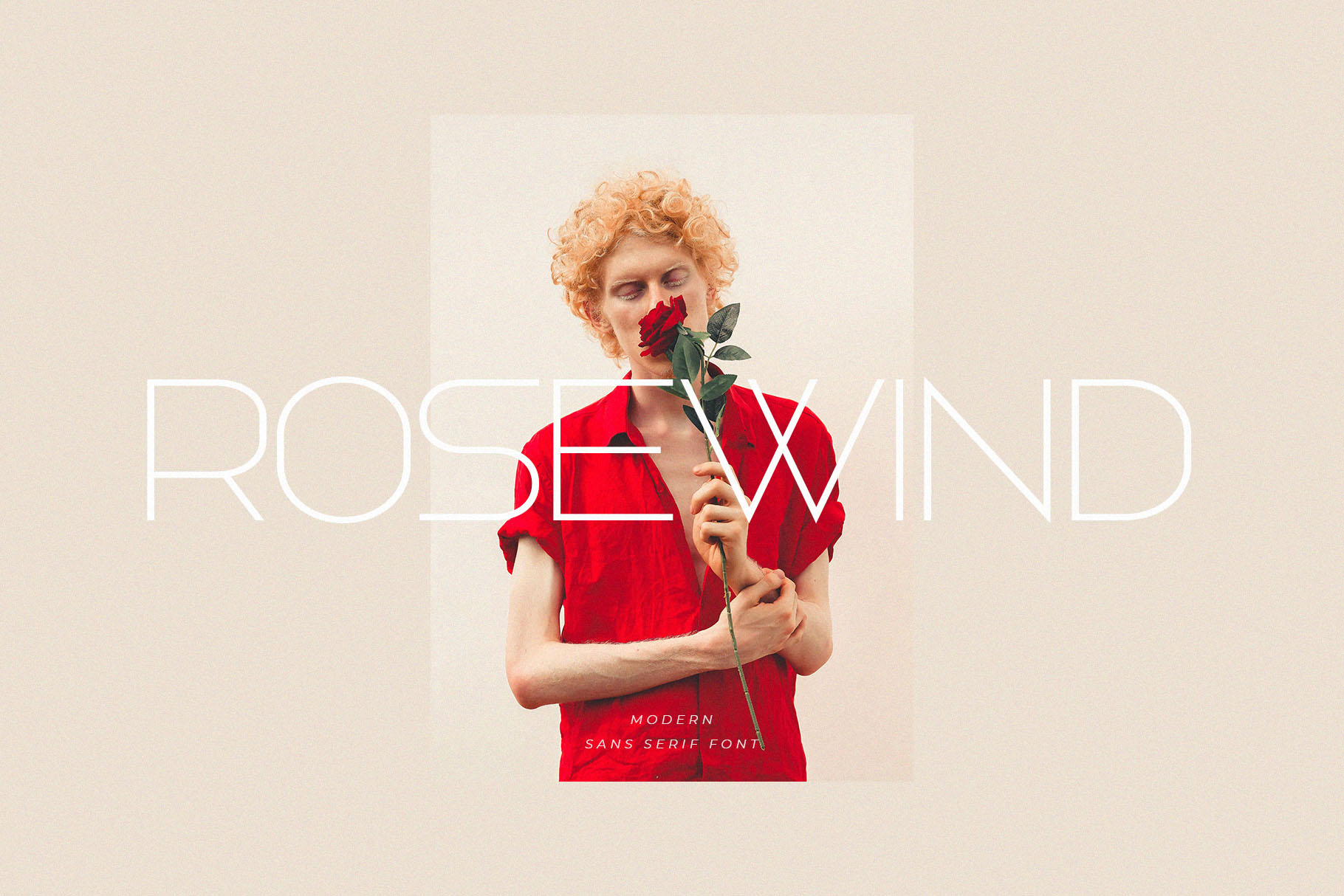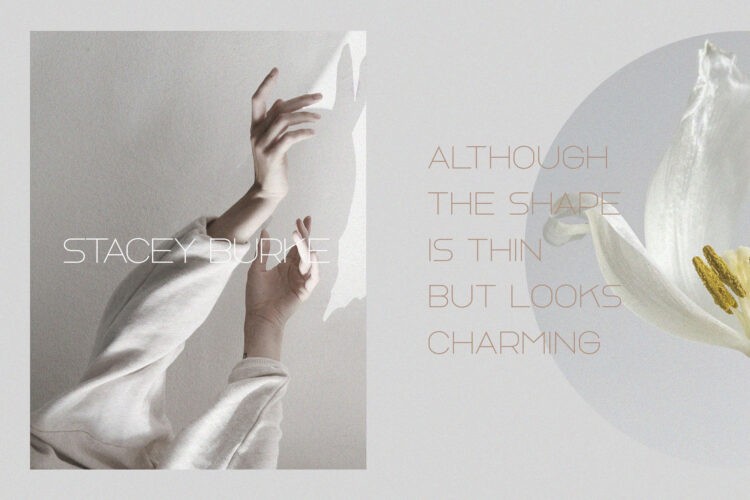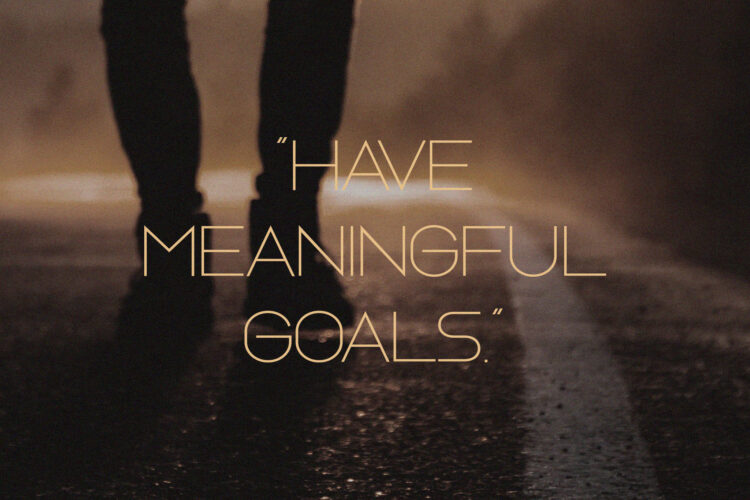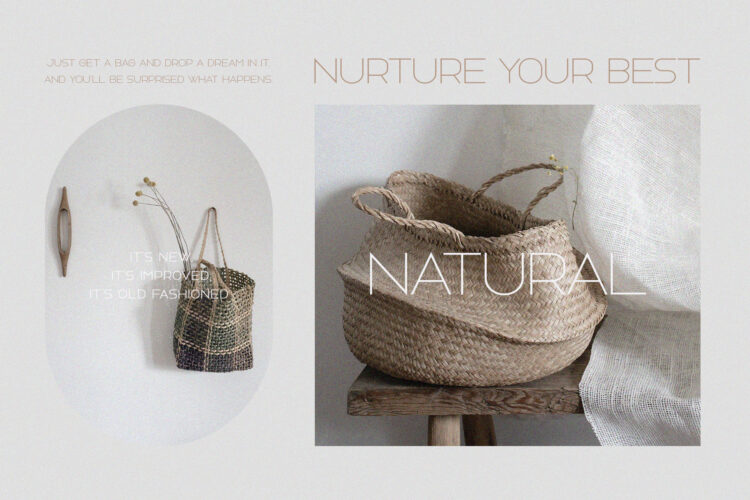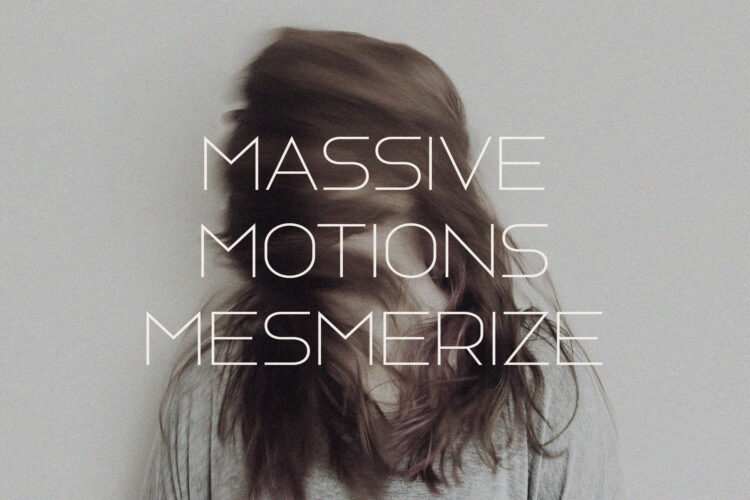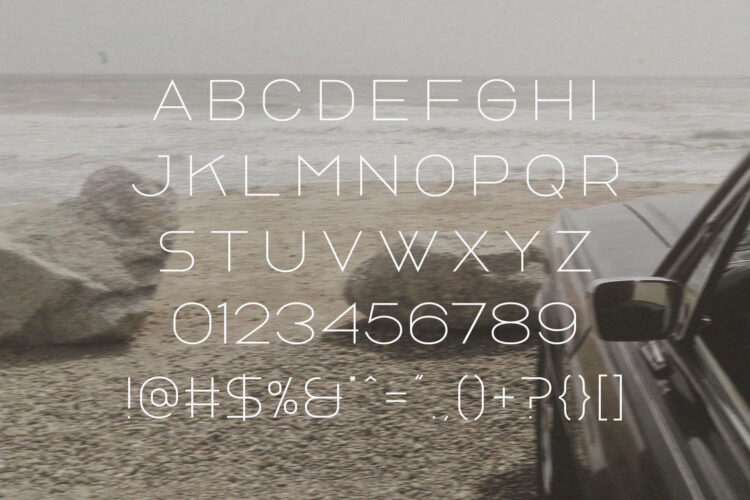
Introducing Rosewind Modern Sans Serif.
Rosewind is a modern and classy typeface, best used as a display for headings, logos, branding, magazines, product packaging and invitations. Rosewind come with clean lines and smooth curves give any project an extra touch of class.